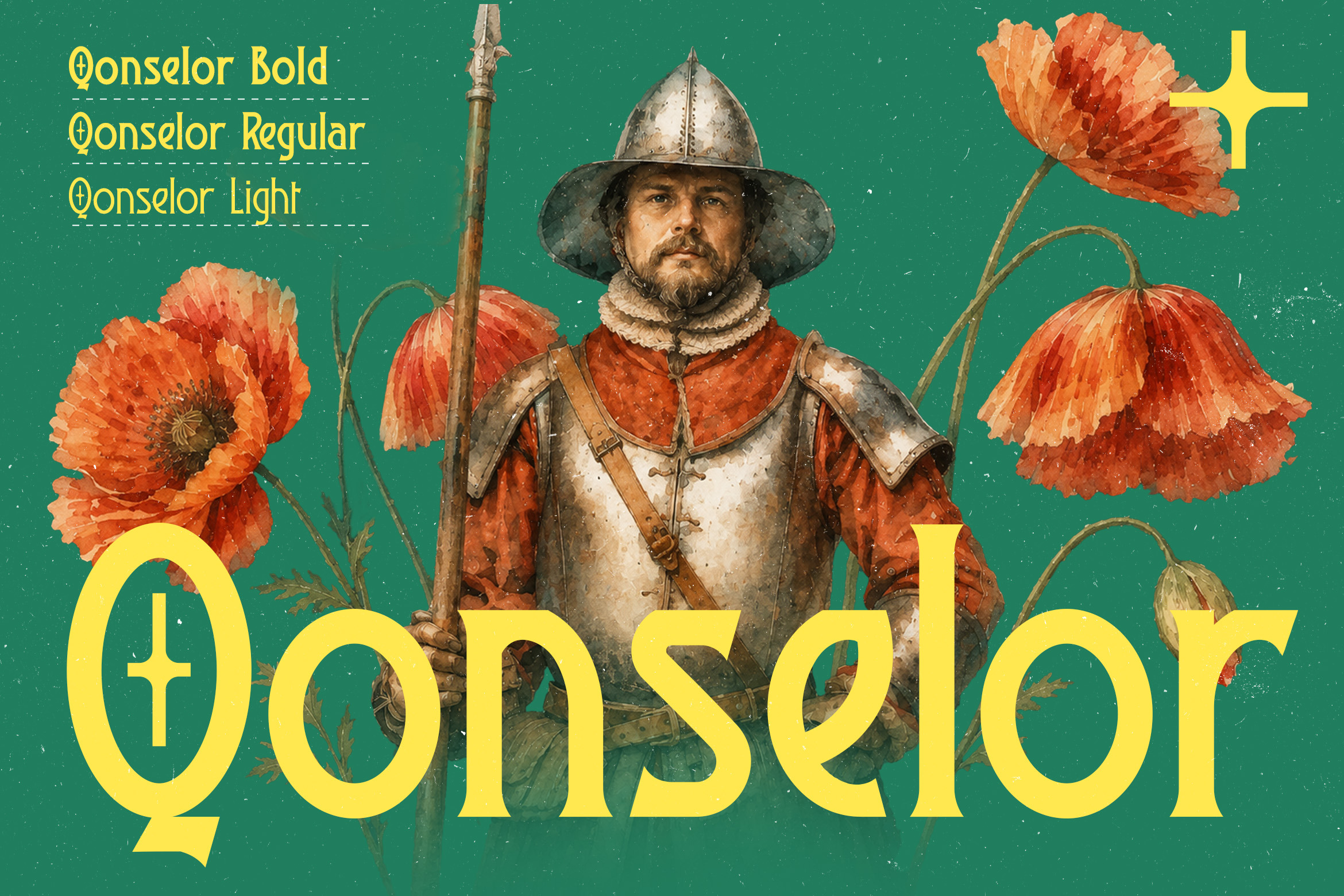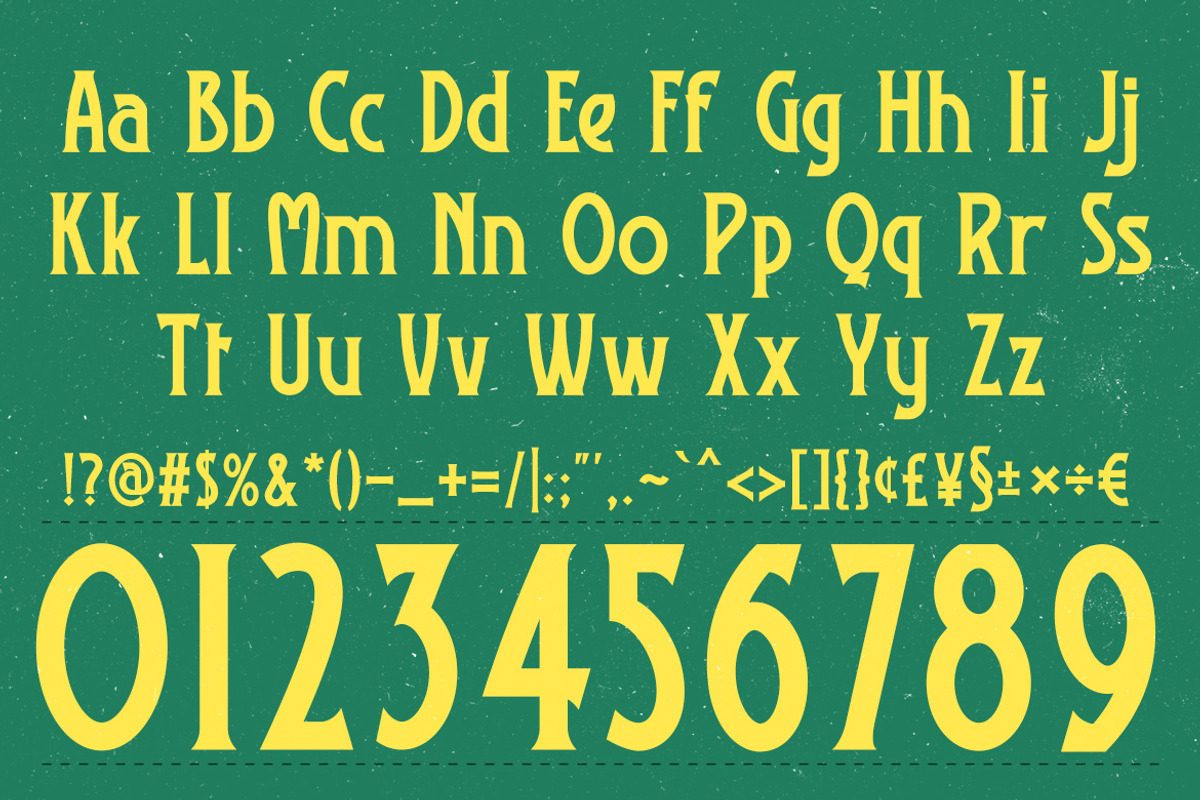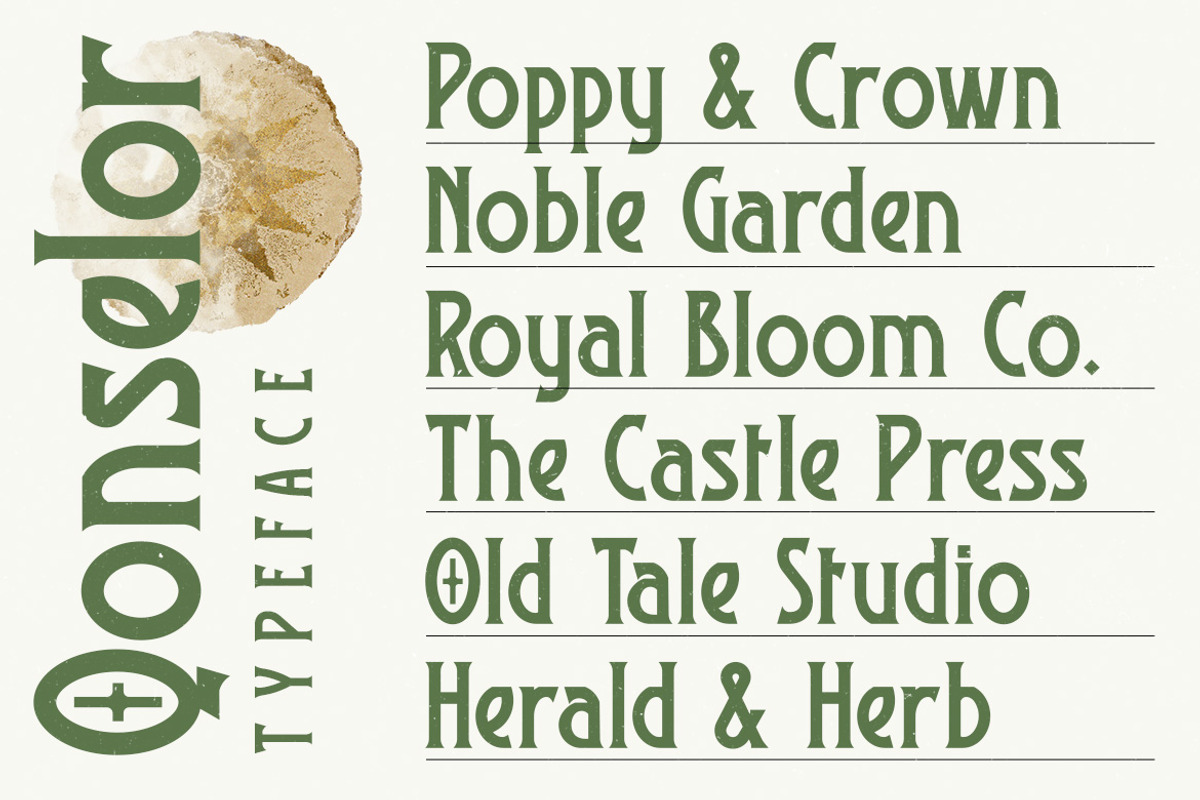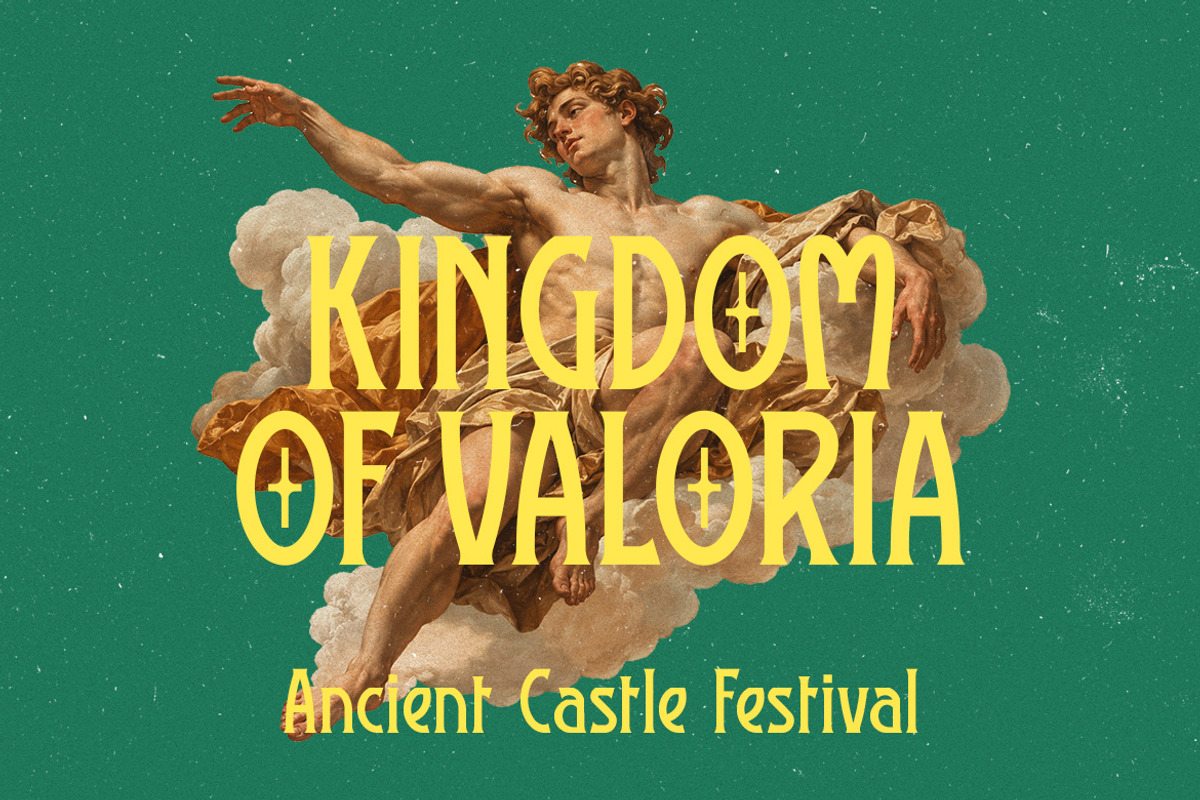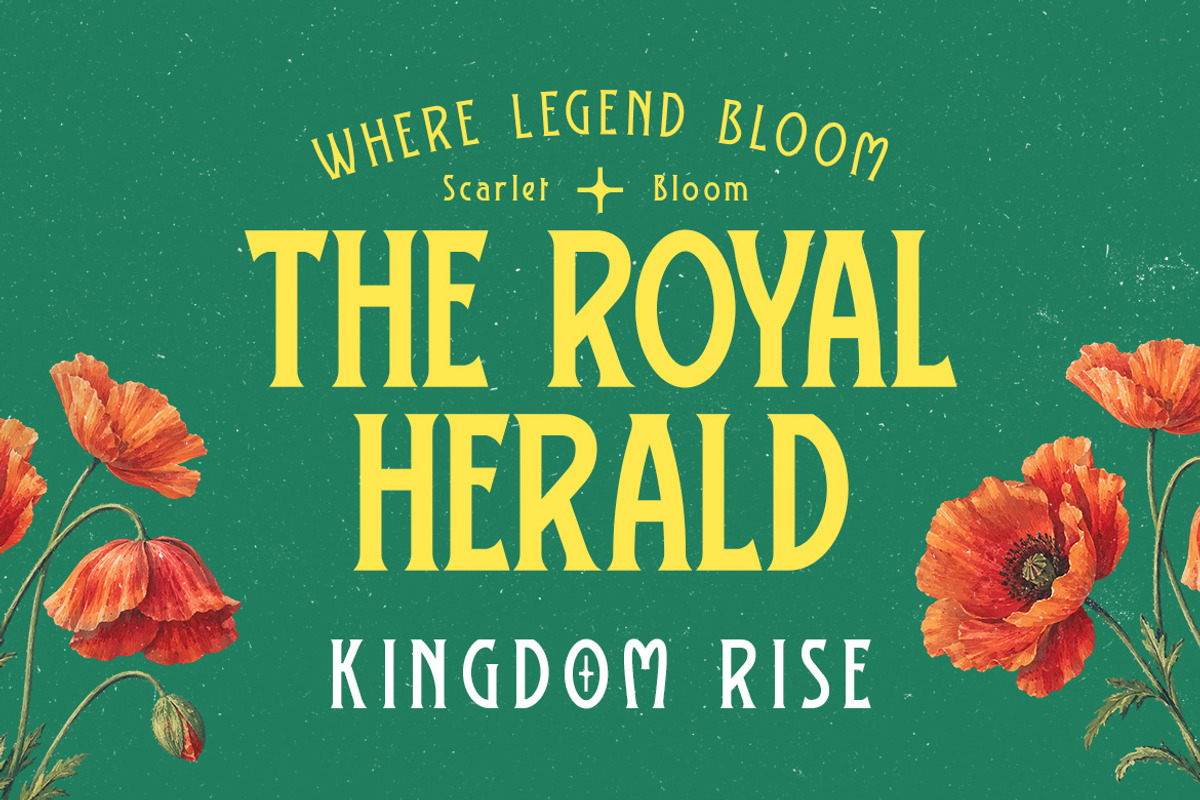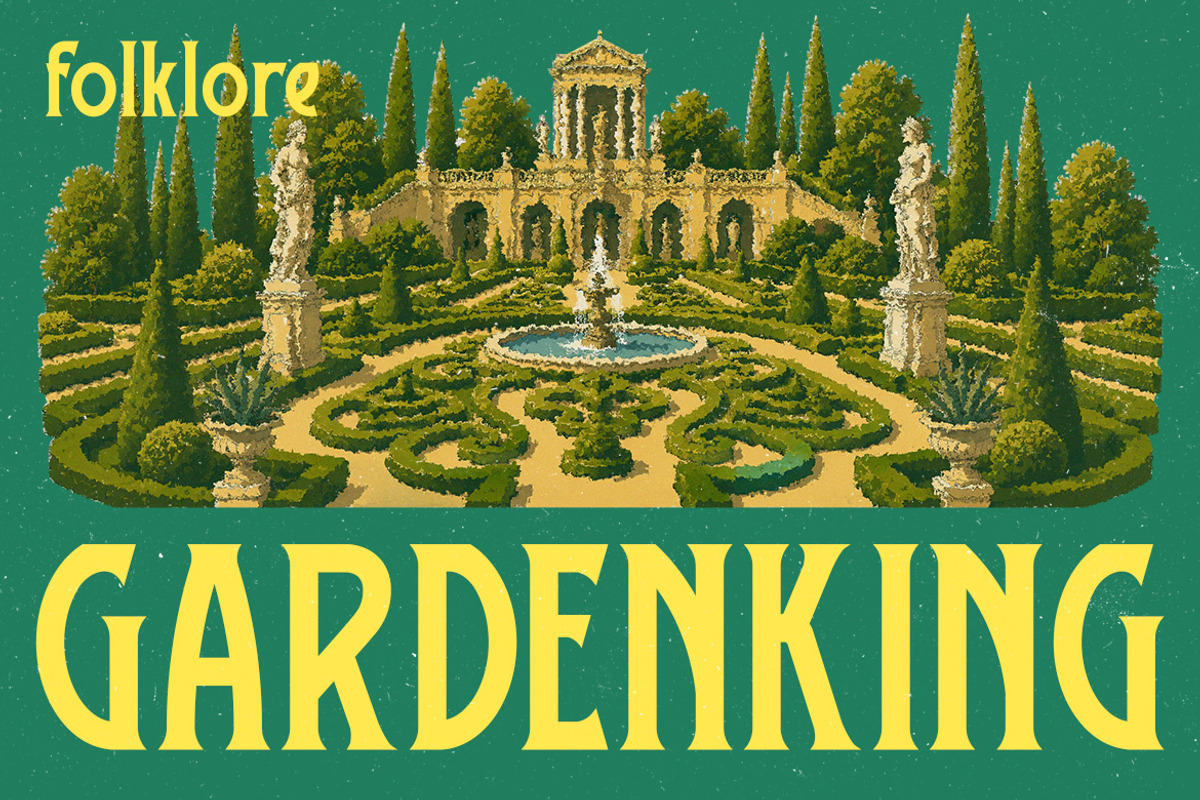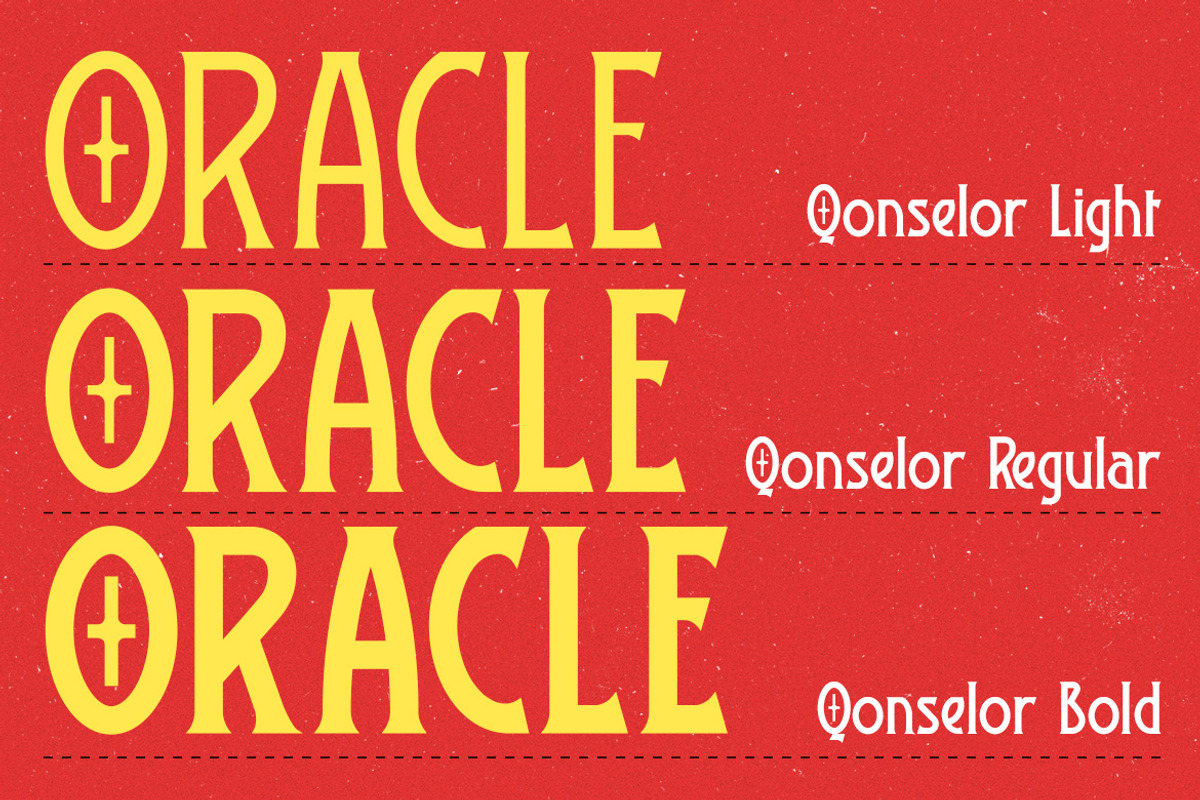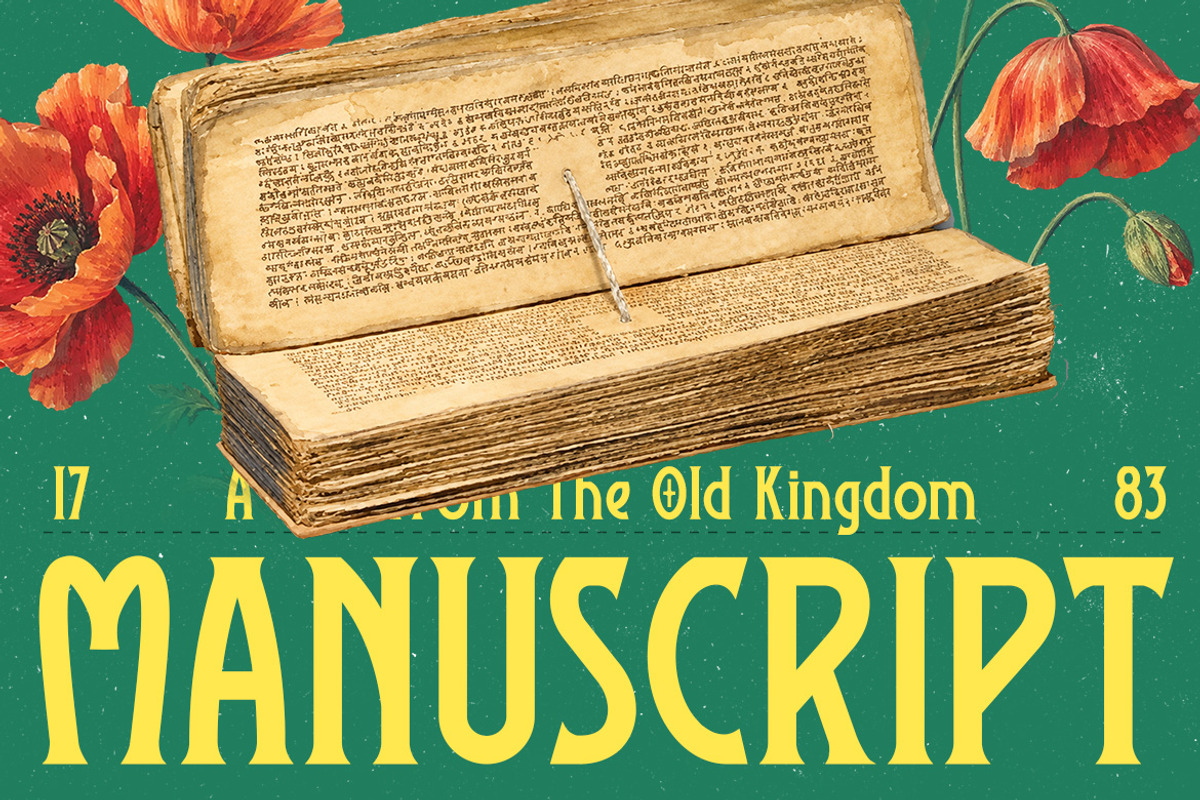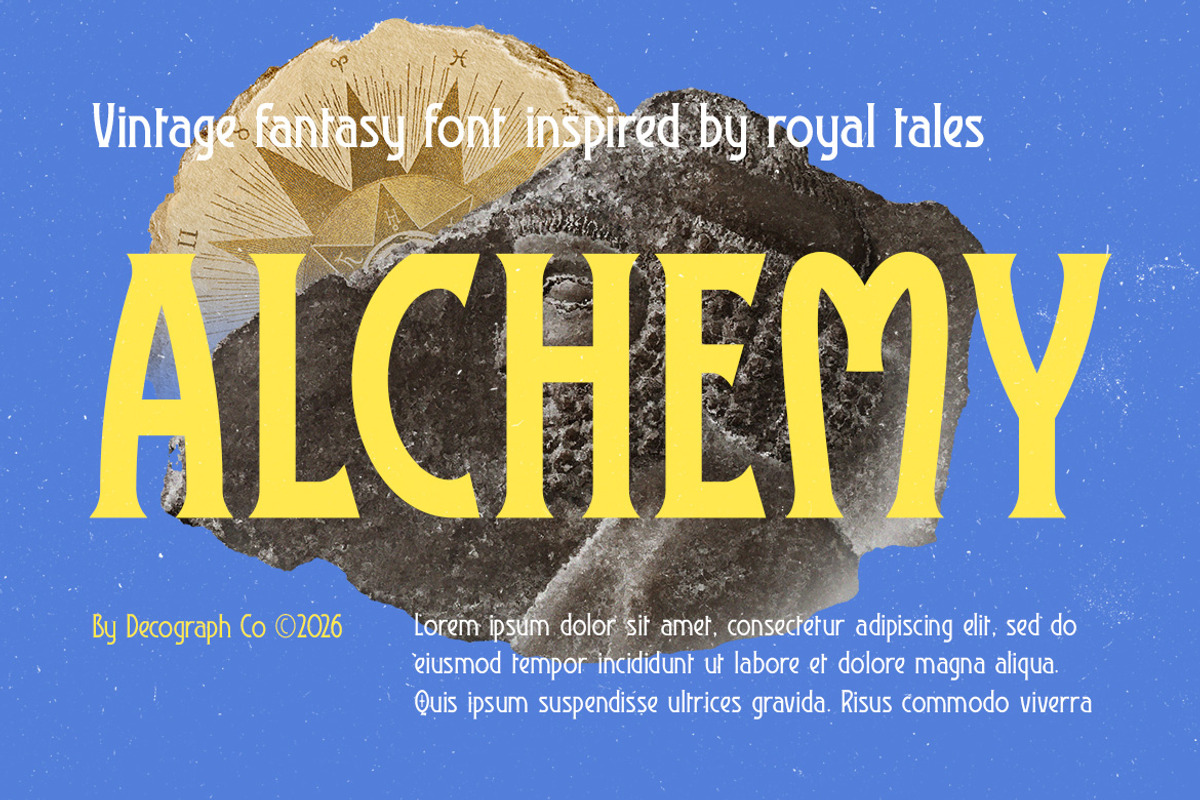
Qonselor – Medieval Serif Font
Qonselor is a distinctive medieval-inspired display serif with an ornamental character and historical visual influence. Its elongated letterforms, refined stroke contrast, pointed serif details, and unusual cross-shaped internal accents give the typeface a ceremonial and slightly mystical personality. Available in multiple weights, from Light to Bold, Qonselor offers flexibility for both subtle editorial compositions and commanding display headlines. It is especially suited to book covers, fantasy branding, posters, historical publications, packaging, editorial design, and cinematic titles—bringing a refined, archaic, dramatic, and storytelling-oriented character to contemporary layouts.